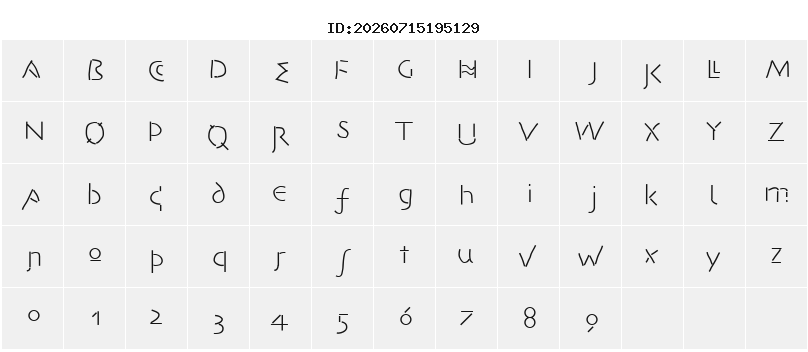
About AvantiDilettanti.ttf
AvantiDilettanti.ttf is a modern, elegant sans-serif font designed for ultimate readability and visual harmony. Perfect for branding, headlines, web design, and print materials.